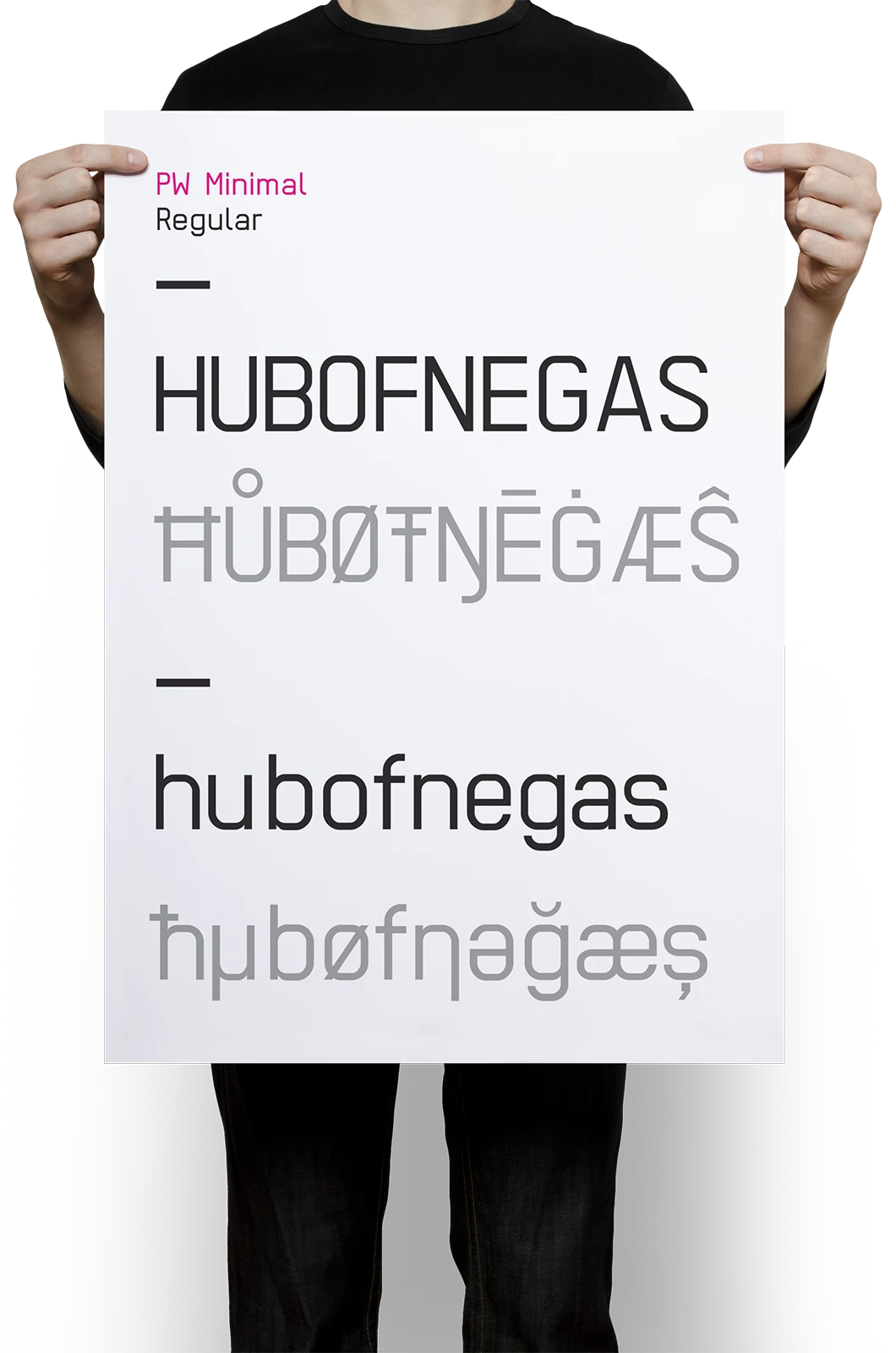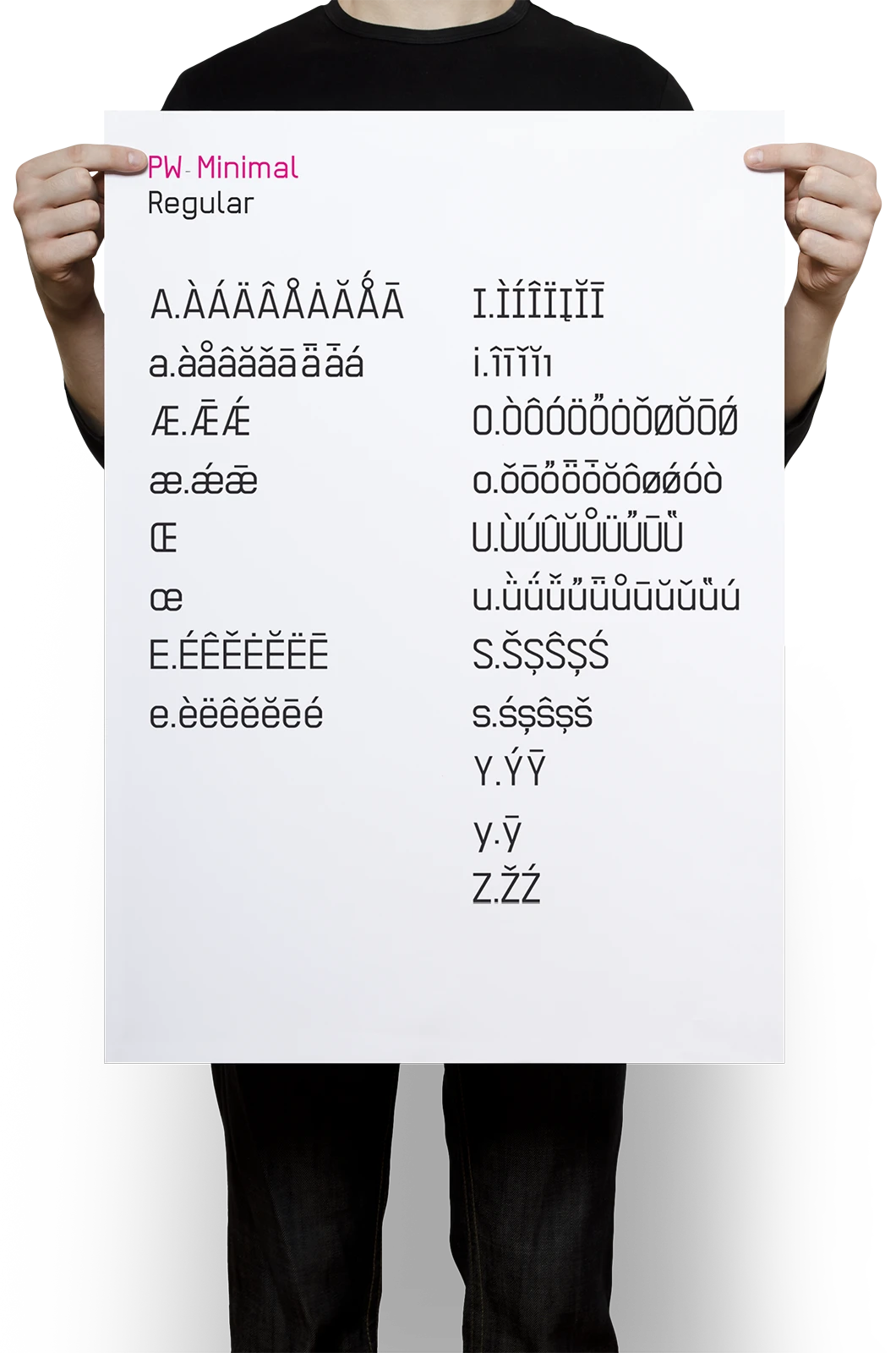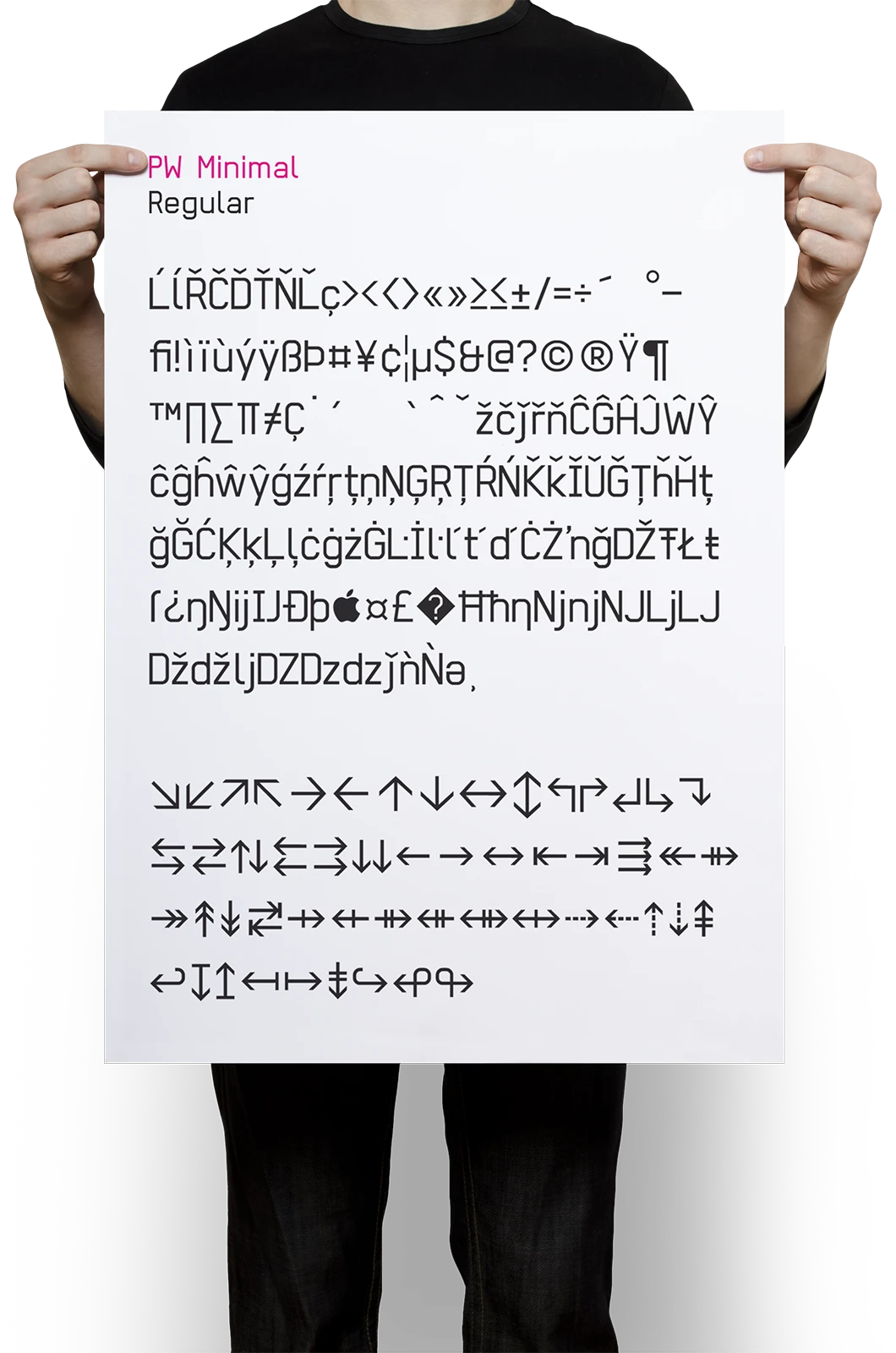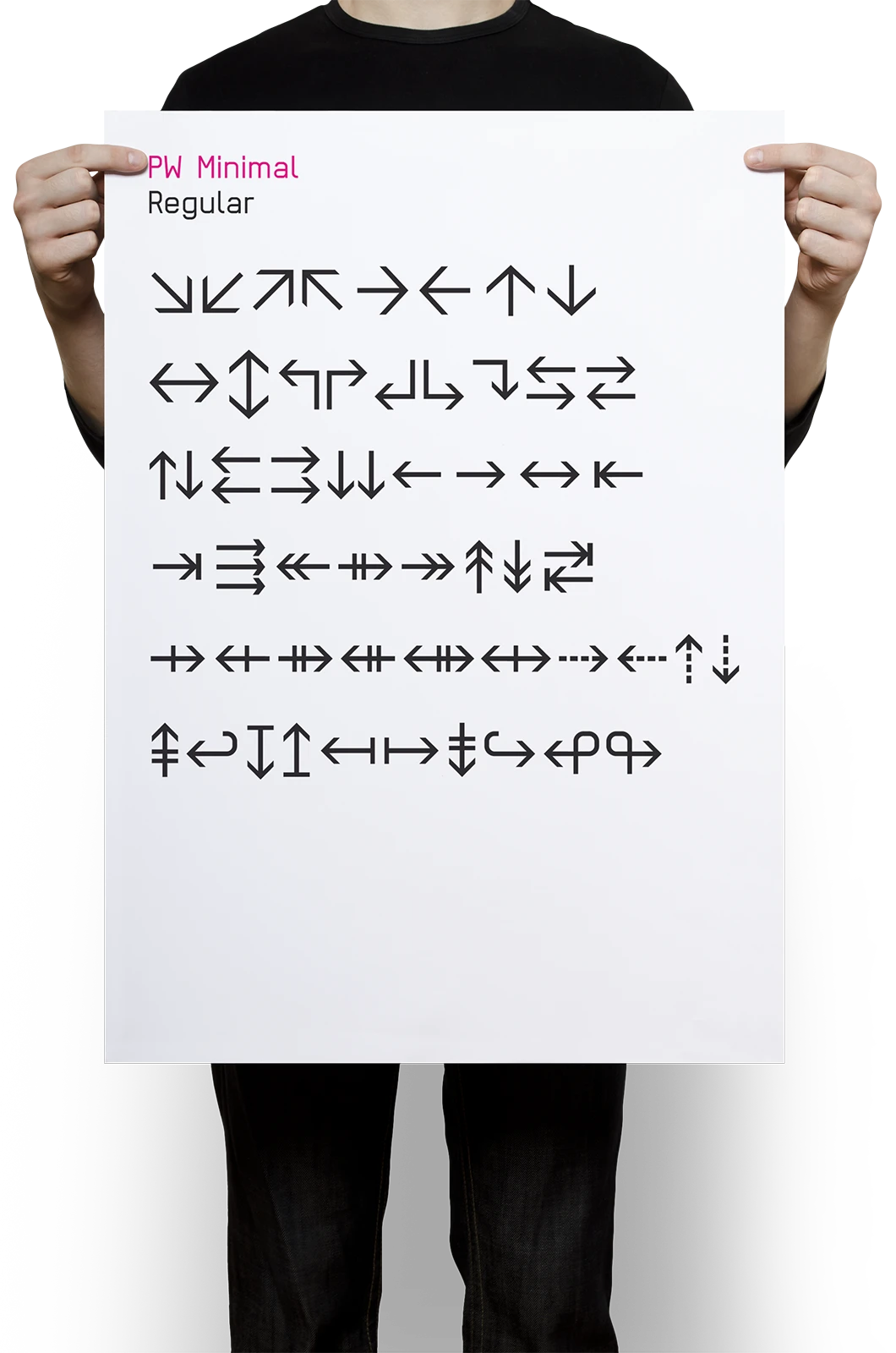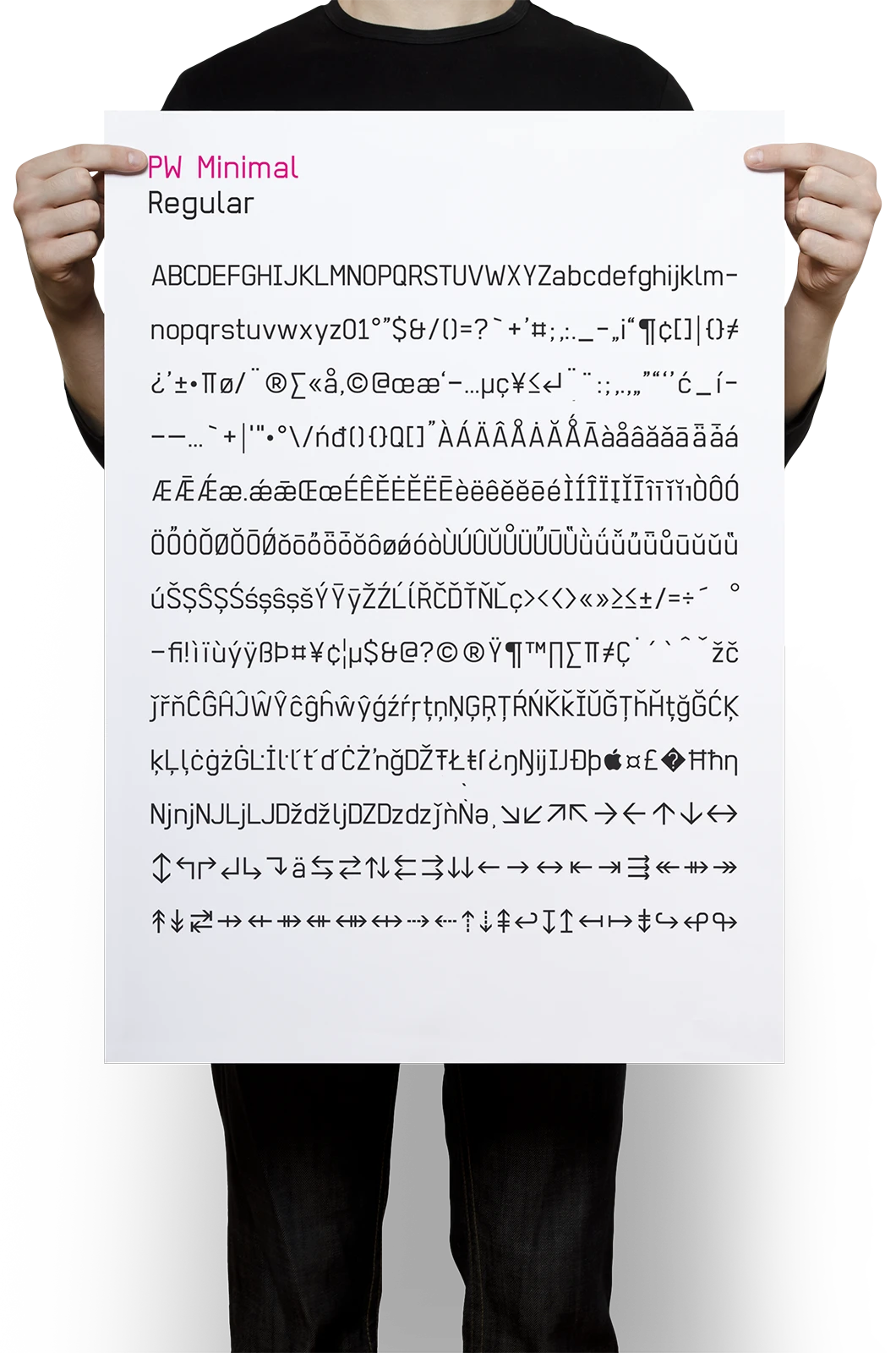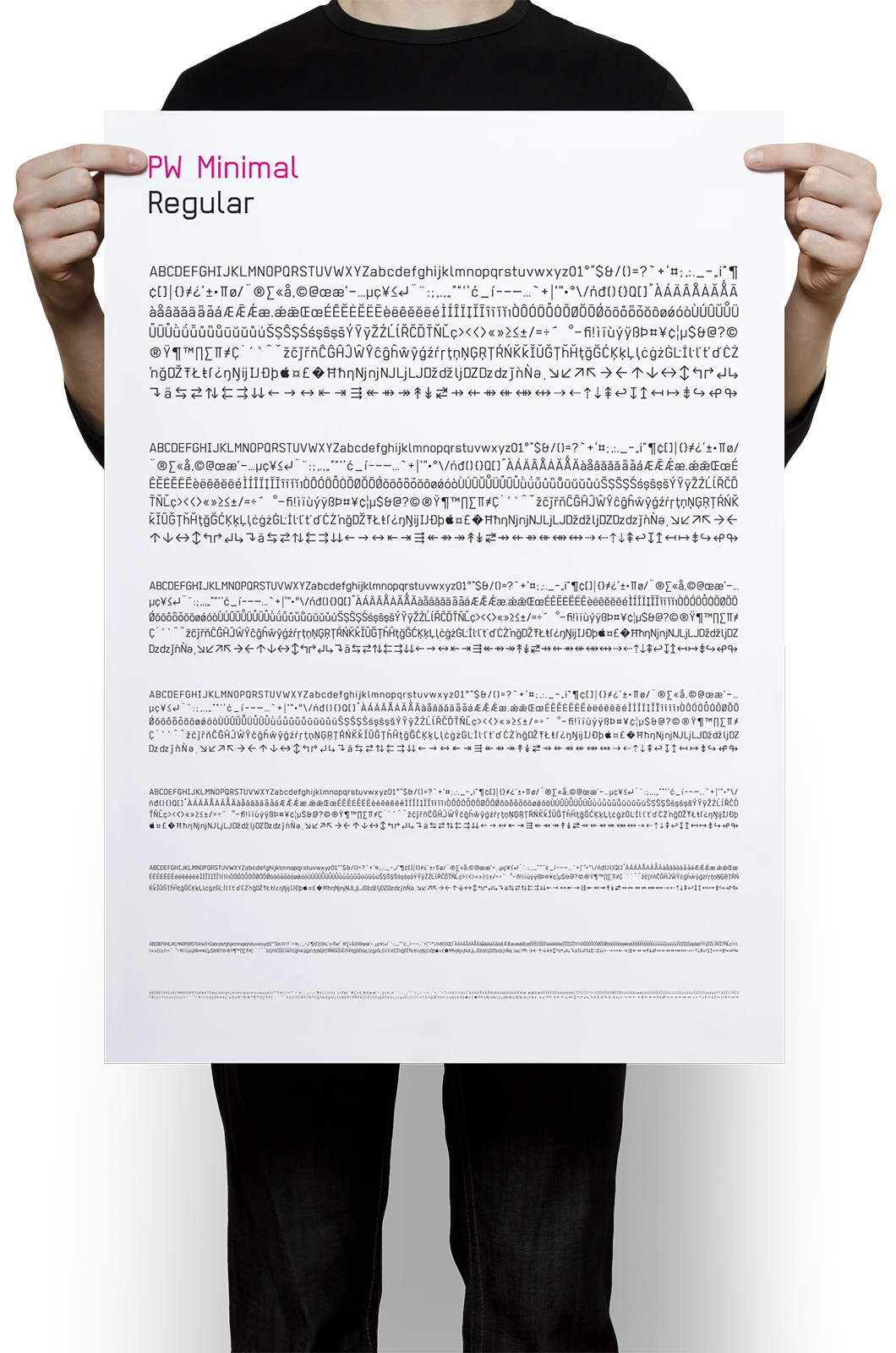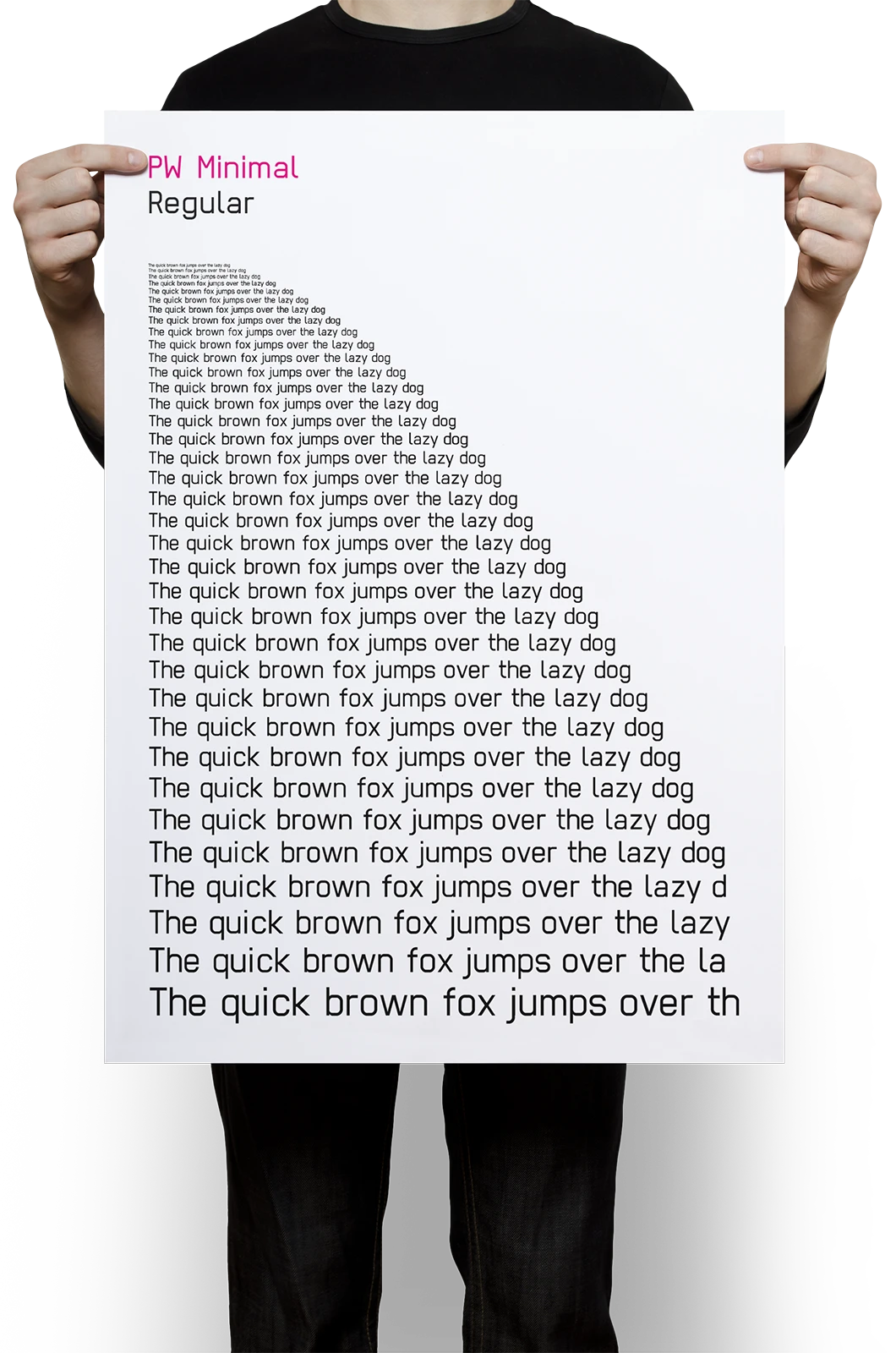
A project on the topic of typeface design, in which a multilingual, minimalist-looking typeface has been created in various styles. This typeface was developed as part of a course at the University of Applied Sciences Potsdam.
Ein Projekt zum Thema Schriftgestaltung bei dem eine multilinguale, minimalistisch anmutenden Schrift in verschiedenen Schnitten gestaltet wurde. Diese Schrift entstand im Rahmen eines Kurses an der Fachhochschule Potsdam.